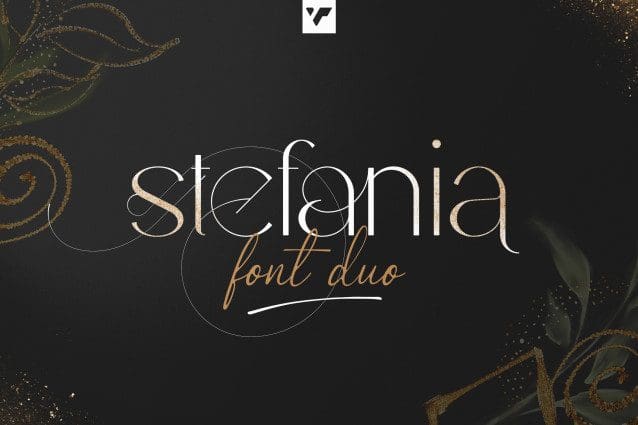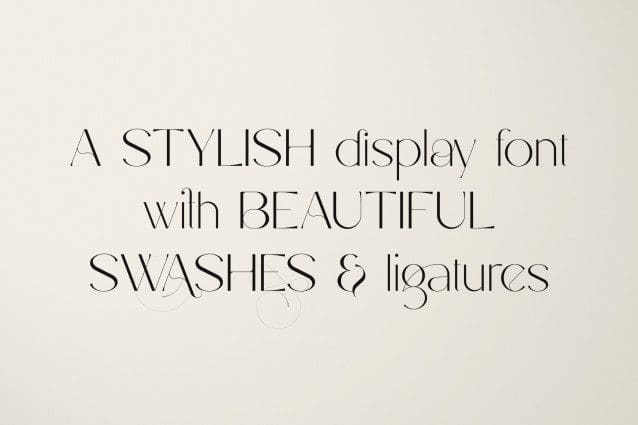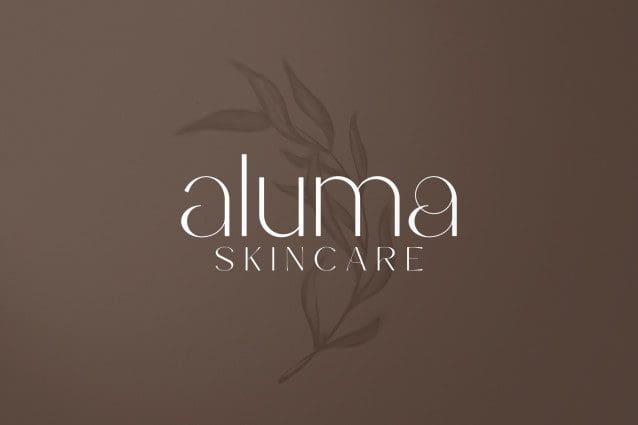
Stefania Font Duo
Stefania Font Duo is casual and creative font duo loaded with 95 languages support, alternate and ligature glyphs, natural, abstract elements, arrangements and backgrounds to make you typography truly unique!